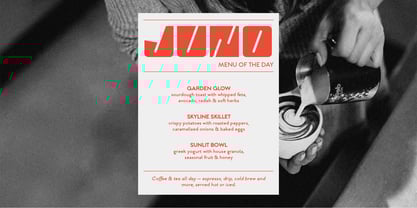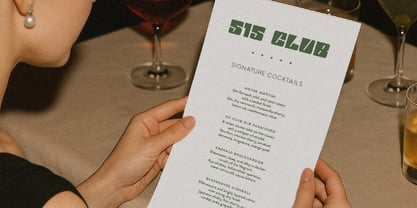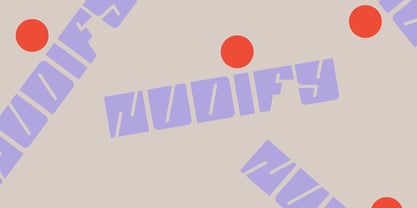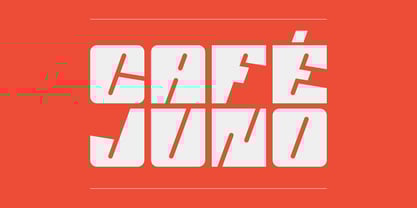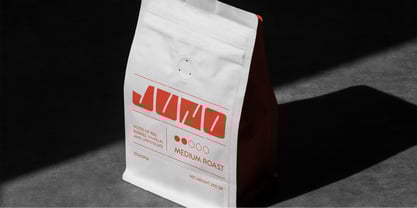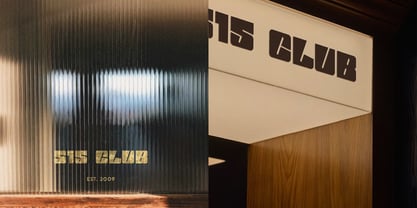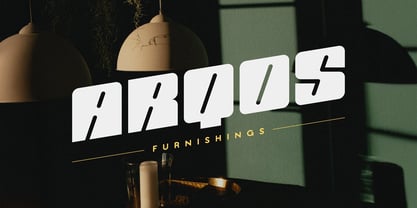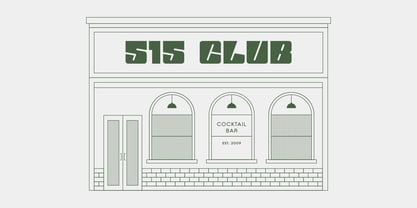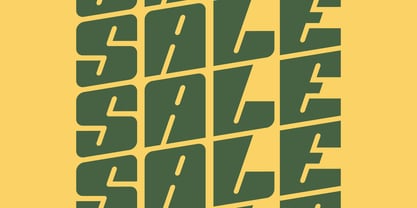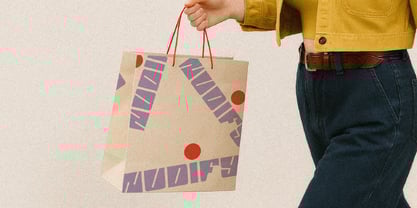
Seglano
by Elyas Beria
The Seglano Font Family was designed by Elyas Beria and published by Elyas Beria. Seglano contains 1 styles.
Seglano is an ultra-bold, modular, caps-only display typeface built for impact. Angular cuts, rounded corners, and forward-leaning details create a bold, industrial tone that reads fast at distance and hits hard in logos, headlines, menus, and signage. Why it works: • Big blocks with clean geometry = high legibility at large sizes • Distinct slanted notches add motion and brandability • Works on curves and rectangles alike—great for stacked, tiled, or staggered wordmarks Best for Brand marks and wordmarks, retail & café signage, packaging and labels, poster headlines, event graphics, apparel prints, social promos, bold editorial openers, wayfinding and window graphics. Features: • Uppercase A–Z • Numerals 0–9 • Punctuation & symbols • Multilingual Latin support